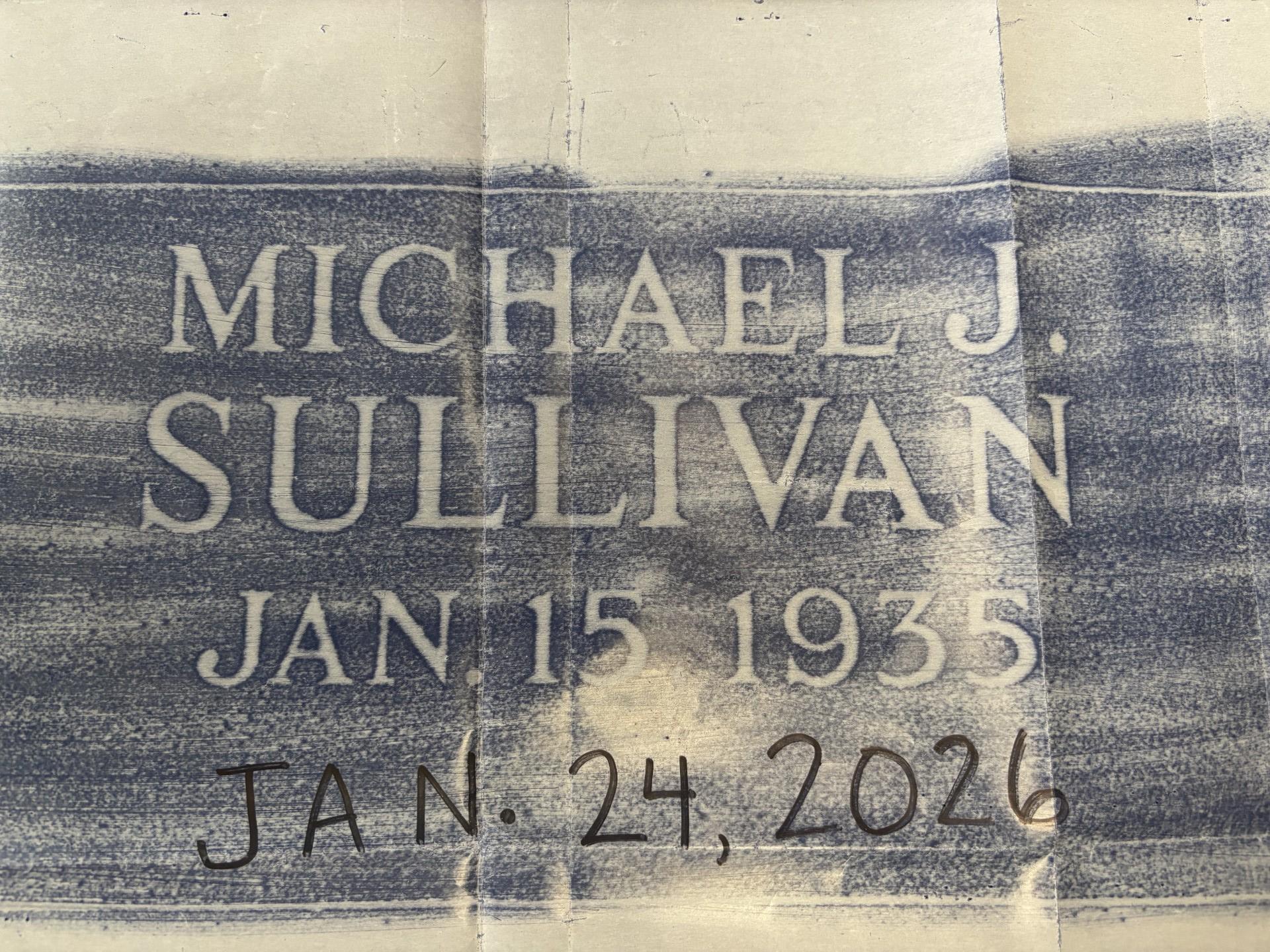
Unfortunately, I do not know the name of this font, but I have matched it on occasion, and I can tell you that it is a custom monument industry font, likely created by a manufacturer—possibly Rock of Ages. It also usually contains a different version of the 9 with no serif, though I have seen this version once before as well.